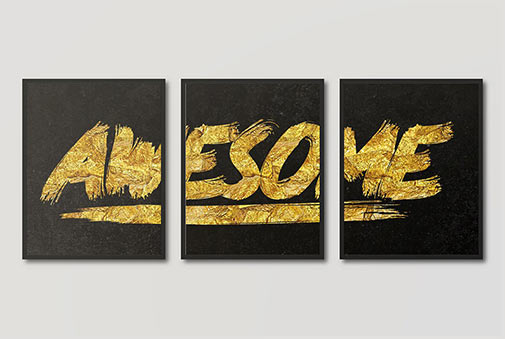
Catch this cool brush typeface of two fonts that will help you to bring a beautiful handcrafted look in your design. Elrotex Brush is an incredibly good fit for any creative project.
Each brushy character is a small contribution to your project, so diverse and rich in a spirit of freedom. Packed with numerals and punctuation marks, it's a lifesaver in any type of design situation from labels and logos, to apparel designs and website banners. Being an outstanding content-maker get easier when you have such font at hand.